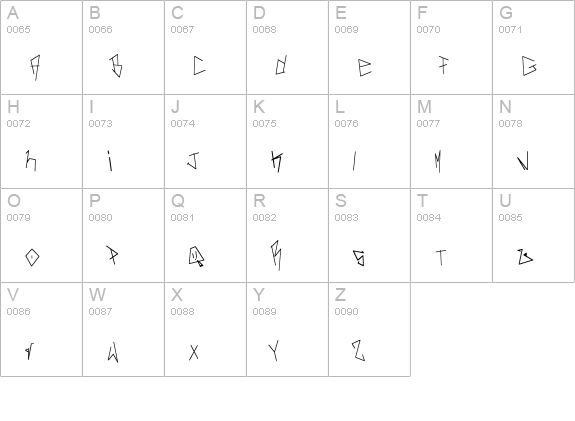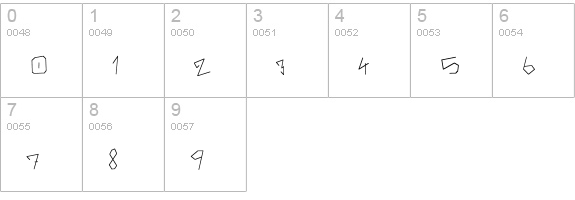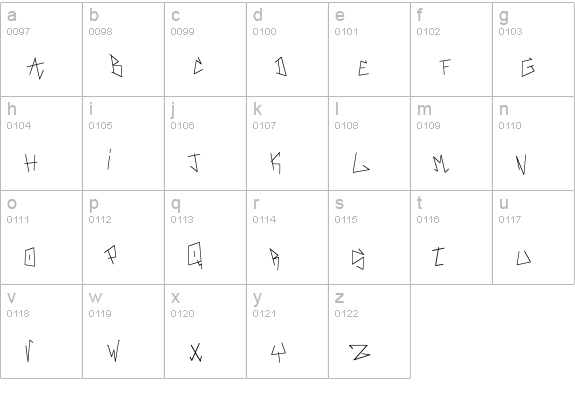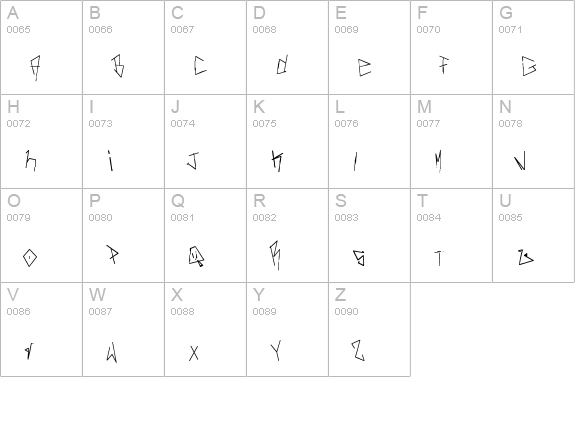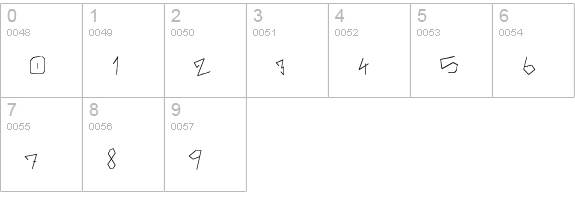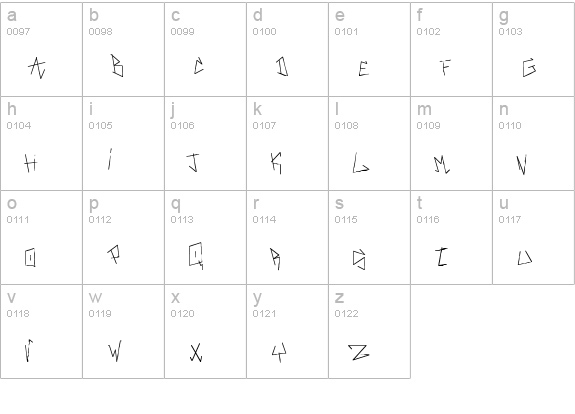
Introducing REAl BrEakerz font, a stunning display of creativity and versatility. This unique typeface breaks the boundaries of traditional fonts, offering a refreshing and edgy design that is sure to make a statement. With its sharp angles and bold strokes, REAl BrEakerz commands attention and demands to be noticed. This font is perfect for those who want to add a touch of rebellion and individuality to their projects. Whether you are designing a poster, creating a logo, or crafting a headline, REAl BrEakerz will bring your words to life with its distinctive and dynamic style. But what sets REAl BrEakerz font apart from the rest is its accessibility. Unlike many other fonts on the market, REAl BrEakerz is available for free. Yes, you read that right – you can freely download this remarkable font at FontsMarket.com. Now, you can unleash your creativity without breaking the bank. So why wait? Embrace the power of REAl BrEakerz font and make a lasting impression with your designs. Download it today and let your imagination run wild.